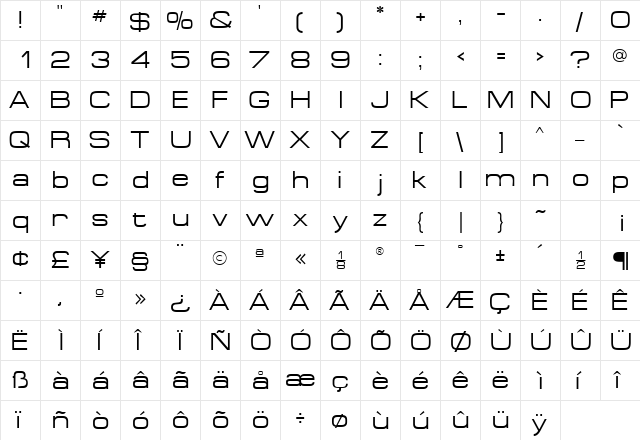
MinimaExpandedSSK Regular
Design Context for MinimaExpandedSSK Typeface
MinimaExpandedSSK is a composed and adaptable typeface that performs quietly and consistently across a wide range of design contexts.